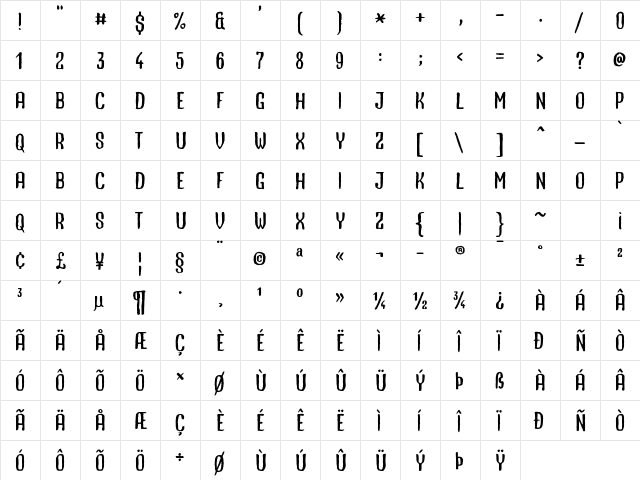
Whatacolour Solid Regular
Design Context for Whatacolour Solid Typeface
Whatacolour Solid offers clean, dependable letterforms without strong stylistic allegiance, making it a practical choice for designers who need flexibility.